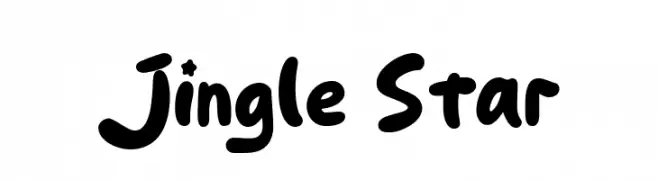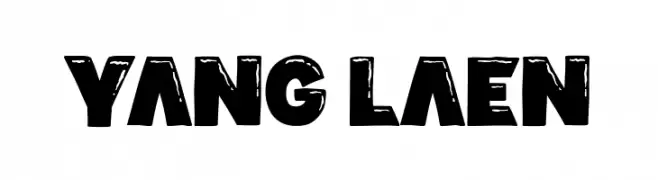
A playful, rounded font with thick, uniform strokes and a friendly appearance.
A playful, bold, and rounded font with a hand-drawn, whimsical style.
A bold, playful font with rounded strokes and a friendly appearance.
A playful, bold typeface with rounded, bubbly characters.
A playful, bold, and hand-drawn style font with a whimsical touch.
A playful, bold font with rounded edges and a whimsical style.
A bold, playful font with rounded, bubbly characters.
A bold, distressed font with a vintage, rugged texture.
A bold, playful font with rounded, whimsical characters.
A playful, bold font with rounded edges and a slightly condensed form.